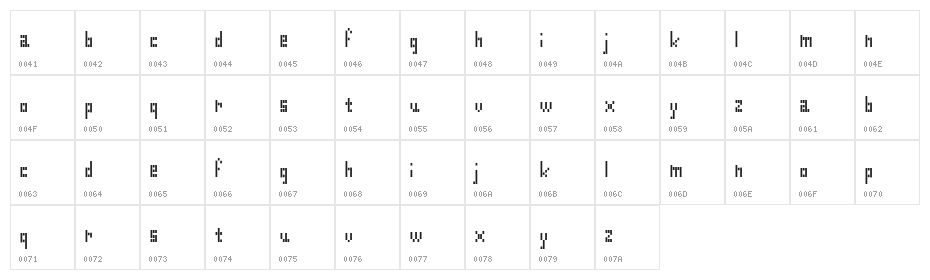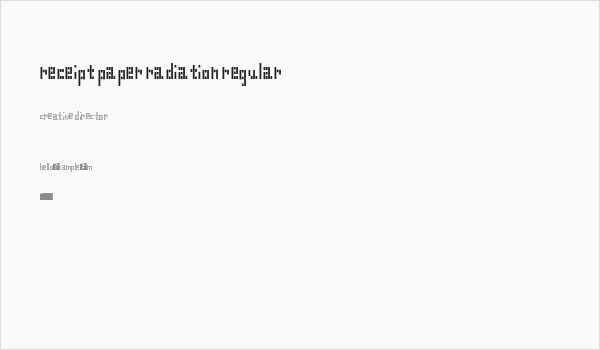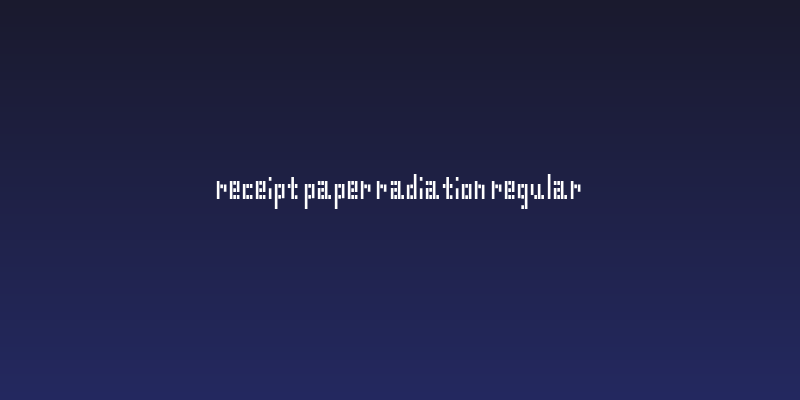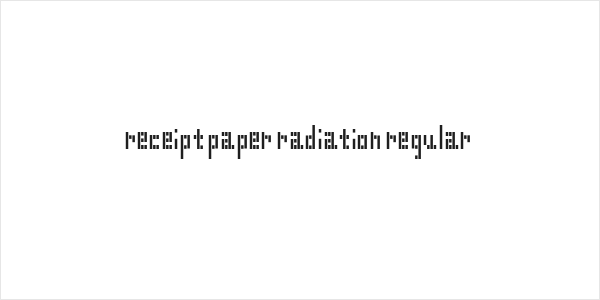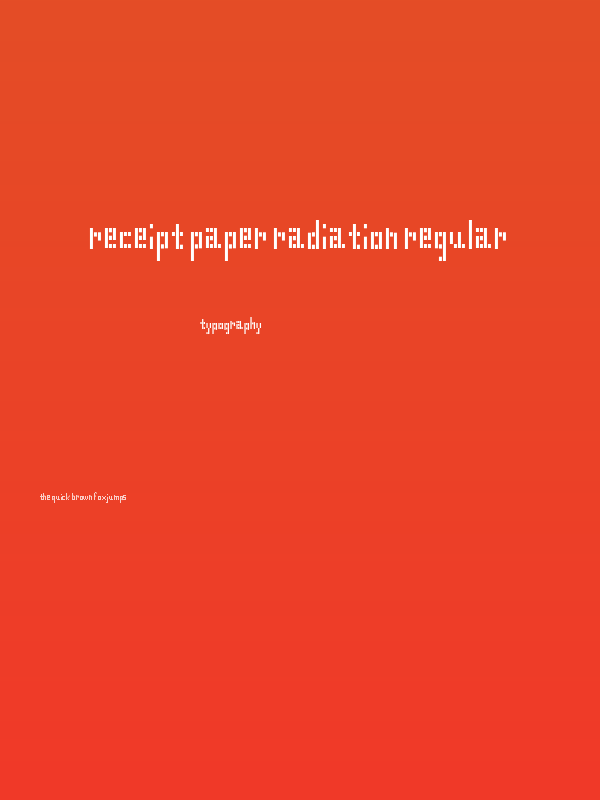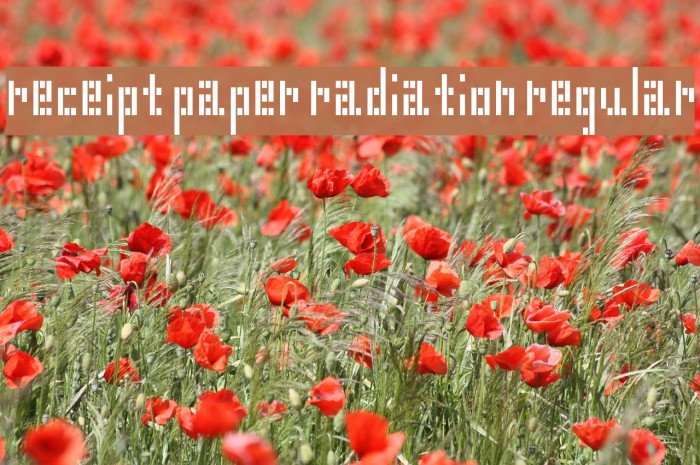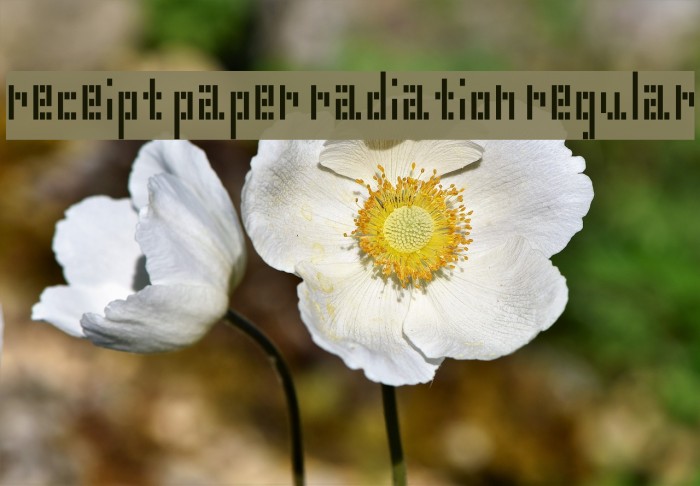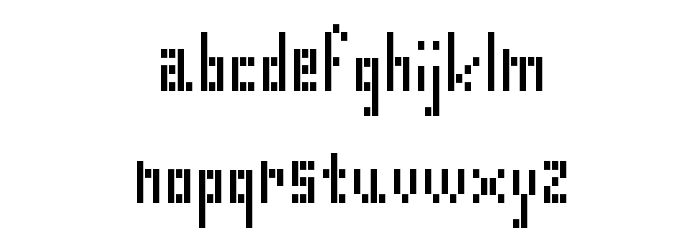
Receipt Paper Radiation Regular Font
Receipt Paper Radiation Regular Description
This font features a distinctive pixelated design, reminiscent of early digital displays and retro gaming aesthetics. Each character is constructed with a grid-like pattern, giving it a blocky and geometric appearance. The uniformity in height and width across characters creates a cohesive and structured look. The font's style is both nostalgic and modern, making it suitable for projects that aim to evoke a sense of digital nostalgia or a tech-inspired theme. Its unique design ensures high legibility at various sizes, while the consistent stroke thickness adds to its bold and impactful presence.
| Overall Style | Retro, Modern |
| Use Case | Headlines, Logos, Digital Art |
| Proposed Projects | Ideal for retro-themed designs, video game graphics, tech-related branding, and digital art projects. |